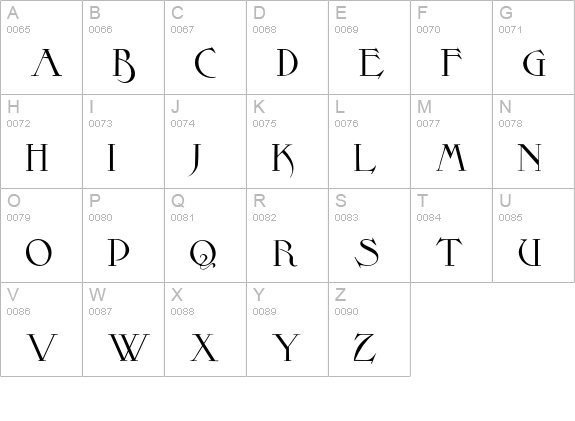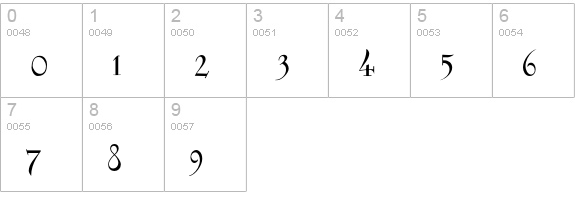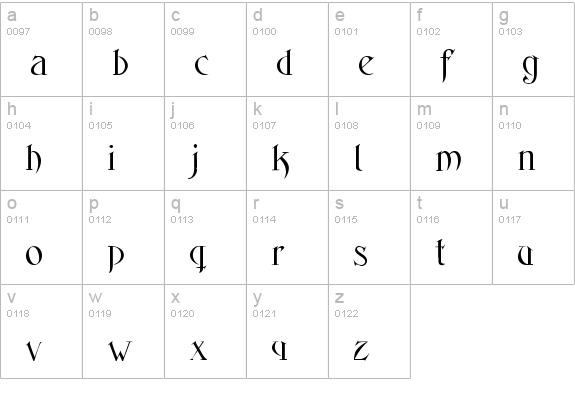
Elphinstone Font Details
Elphinstone font is a beautifully crafted typeface that exudes elegance and sophistication. Its graceful curves and sharp lines make it the perfect choice for projects that require a touch of class. This versatile font is suitable for a wide range of design applications, from branding to editorial design. The best part about Elphinstone font is that it is completely free to download at FontsMarket.com. This means that you can add this stunning typeface to your font library without having to spend a dime. Whether you're working on a personal project or a client's design, Elphinstone font is sure to elevate your work to the next level. Download it today and see for yourself the magic it brings to your designs.